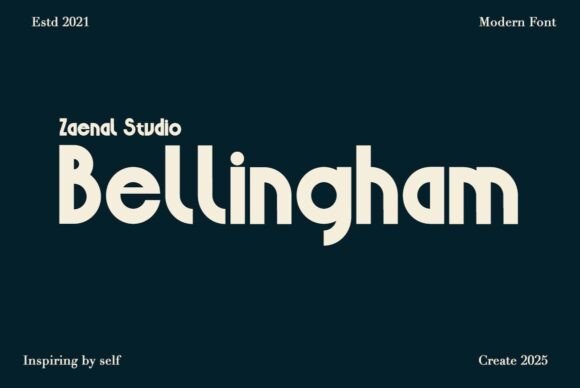
Bellingham Font: Elevate Your Designs with a Bold and Assertive Sans Serif
In the world of typography, a font can make or break a design. A well-chosen font can elevate your creation, conveying the perfect tone and personality. If you’re a designer or crafter looking to add a bold and assertive touch to your work, look no further than the Bellingham Font. This sans serif font is an incredible asset to any font library, capable of elevating any creation, regardless of the topic or theme.
What is Bellingham Font?
Bellingham Font is a modern sans serif font, designed to make a statement. Its bold and assertive style makes it perfect for headlines, titles, and any other text that needs to grab attention. With its clean and minimalist aesthetic, Bellingham Font is versatile enough to be used in a wide range of applications, from digital designs to print materials.
Key Features of Bellingham Font
• Bold and Assertive: Bellingham Font is designed to make a statement. Its bold and assertive style ensures that your text will stand out, even in a crowded design.
• Clean and Minimalist: The clean and minimalist aesthetic of Bellingham Font makes it perfect for modern designs. Its simple, uncluttered lines ensure that your text will be easy to read, even at small sizes.
• Versatile: Bellingham Font is versatile enough to be used in a wide range of applications, from digital designs to print materials. Its flexibility makes it an excellent addition to any font library.
• Easy to Read: Despite its bold style, Bellingham Font is easy to read, even at small sizes. This makes it perfect for body text, as well as headlines and titles.
Uses for Bellingham Font
Bellingham Font is an incredibly versatile font, suitable for a wide range of applications. Here are just a few examples of how you can use Bellingham Font in your designs:
• Headlines and Titles: Bellingham Font is perfect for headlines and titles, where its bold and assertive style can really make an impact.
• Digital Designs: Bellingham Font is well-suited to digital designs, including website headers, social media graphics, and more.
• Print Materials: Bellingham Font is also suitable for print materials, such as brochures, flyers, and posters.
• Branding and Identity: Bellingham Font can be used to create bold and assertive branding and identity materials, such as logos and business cards.
Benefits of Using Bellingham Font
So why should you choose Bellingham Font for your designs? Here are just a few benefits of using this versatile font:
• Instant Impact: Bellingham Font is designed to make a statement. Its bold and assertive style ensures that your text will stand out, even in a crowded design.
• Flexibility: Bellingham Font is versatile enough to be used in a wide range of applications, from digital designs to print materials.
• Easy to Read: Despite its bold style, Bellingham Font is easy to read, even at small sizes.
• Unique Style: Bellingham Font has a unique style that will help your designs stand out from the crowd.
In conclusion, Bellingham Font is an excellent addition to any font library. Its bold and assertive style, combined with its clean and minimalist aesthetic, make it perfect for a wide range of applications. Whether you’re a designer or crafter, Bellingham Font is sure to elevate your creations and help you achieve your design goals. So why wait? Add Bellingham Font to your font library today and start creating stunning designs that demand attention.